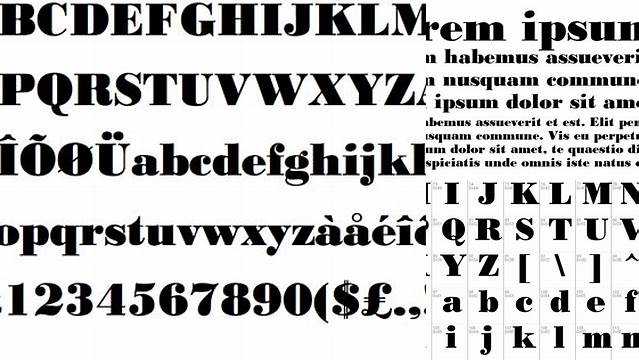
Monotype Bodoni Black: Free Font Guide & Alternatives
Hey guys! Let's dive into the world of Monotype Bodoni Black, a font that screams elegance and boldness. If you're looking for a typeface that can make your designs pop, you've come to the right place. Monotype Bodoni Black is a timeless classic, perfect for headlines, posters, branding, and so much more. This article will explore everything you need to know about this fantastic font, from its history and characteristics to its best uses and where you can find it for free. Get ready to level up your typography game!
What is Monotype Bodoni Black?
Monotype Bodoni Black is a striking typeface known for its high contrast between thick and thin strokes. It's a member of the Bodoni family, which is part of the larger group of Didone fonts. These types of fonts are characterized by their vertical stress, sharp serifs, and dramatic thick-to-thin transitions. Bodoni, in particular, was designed by Giambattista Bodoni in the late 18th century and has since become a staple in the design world. Monotype Bodoni Black, specifically, is a heavier, bolder version of the classic Bodoni, making it perfect for grabbing attention. It’s like the superhero version of a regular serif font, ready to make a statement! Using Monotype Bodoni Black can instantly elevate your designs, giving them a touch of sophistication and a modern edge. The font's clean lines and strong presence make it incredibly versatile, suitable for a wide range of projects, from editorial layouts to eye-catching advertising campaigns. When you choose Monotype Bodoni Black, you're not just selecting a font; you're embracing a legacy of typographic excellence. This font carries a rich history and tradition, making it a go-to choice for designers who want to blend classic elegance with contemporary flair. So, if you're aiming for a design that is both timeless and impactful, Monotype Bodoni Black is definitely a font you should consider adding to your toolkit. Trust me, it’s a game-changer!
History and Evolution of Bodoni
The story of Bodoni begins with Giambattista Bodoni, an Italian typographer, printer, and publisher who lived from 1740 to 1813. Bodoni's work was heavily influenced by the printing and typographic styles of John Baskerville and the French Didot family. He admired their clarity and elegance but sought to push the boundaries even further. Bodoni's vision was to create a typeface that embodied purity and perfection, a font that was both functional and beautiful. He achieved this by emphasizing the contrast between thick and thin strokes, creating letterforms that were sharp, geometric, and highly refined. His designs were a departure from the earlier transitional serif fonts, leaning towards a more modern and neoclassical aesthetic. This bold move in typography set the stage for the Didone or Modern Serif style, which includes fonts like Didot and, of course, Bodoni. The evolution of Bodoni over the years has seen numerous interpretations and adaptations. While the original Bodoni was designed for print, the digital age has brought new versions optimized for screen use. Monotype Bodoni Black is one such adaptation, designed to retain the classic elegance of Bodoni while ensuring legibility and impact in various digital applications. The digital versions often incorporate subtle adjustments to the letterforms to ensure they render well on different devices and screen resolutions. This evolution has allowed Bodoni to remain relevant and widely used in contemporary design. From its origins in the late 18th century to its modern-day digital forms, Bodoni's journey is a testament to its enduring appeal and the genius of its creator. It’s a font that has stood the test of time, continuing to inspire designers with its timeless beauty and versatility. So, when you use Monotype Bodoni Black, you’re tapping into a rich history and a legacy of typographic excellence, which is pretty cool, right?
Key Characteristics of Monotype Bodoni Black
When you look at Monotype Bodoni Black, several distinct features jump out. First and foremost is the extreme contrast between the thick and thin strokes. This high contrast gives the font its dramatic and eye-catching appearance. It's like the font is flexing its muscles, showing off those bold lines! Another defining characteristic is the sharp, unbracketed serifs. Unlike older serif fonts with rounded serifs, Bodoni's serifs are straight and flat, adding to its modern and geometric feel. This sharpness contributes to the font's overall elegance and precision. The vertical stress is another key feature. In Monotype Bodoni Black, the thick strokes are predominantly vertical, which gives the letters a strong, upright stance. This verticality adds to the font's formality and sophistication. The letterforms themselves are typically narrow and condensed, which allows for efficient use of space. This compactness makes Monotype Bodoni Black ideal for headlines and titles where you want to make a big impact without taking up too much room. It’s like fitting a lot of personality into a small package! The overall impression of Monotype Bodoni Black is one of elegance, formality, and strength. It’s a font that commands attention and conveys a sense of authority. Whether you're designing a magazine cover, a poster, or a website headline, this font will make your message stand out. Its distinctive characteristics make it a favorite among designers who want to add a touch of class and sophistication to their work. Understanding these key characteristics helps you appreciate the unique qualities of Monotype Bodoni Black and how it can enhance your designs. So, next time you see this font, you’ll know exactly what makes it so special and why it’s such a popular choice in the design world.
Best Uses for Monotype Bodoni Black
So, where does Monotype Bodoni Black really shine? This font is incredibly versatile, but it truly excels in certain applications. Think about headlines and titles – Monotype Bodoni Black is a powerhouse here. Its bold weight and high contrast make it perfect for grabbing attention and creating a strong visual hierarchy. Whether it's a magazine cover, a website header, or a poster, this font will ensure your message is seen. In the world of branding and logos, Monotype Bodoni Black can add a touch of elegance and sophistication. It's a great choice for brands that want to convey a sense of luxury, quality, and timelessness. Imagine a high-end fashion brand or a boutique hotel using this font in their logo – it just screams class, right? Editorial design is another area where Monotype Bodoni Black excels. Its clean lines and formal appearance make it ideal for magazines, books, and other publications. It works particularly well for headings and subheadings, providing a clear contrast to body text and guiding the reader through the content. While Monotype Bodoni Black is fantastic for display purposes, it's generally not the best choice for long blocks of body text. The high contrast and sharp serifs can become tiring on the eyes when read for extended periods. It’s like trying to run a marathon in high heels – stylish, but not very practical! However, it can be used sparingly for short paragraphs or captions to add a touch of visual interest. In advertising and marketing materials, Monotype Bodoni Black can help create a polished and professional look. It's perfect for campaigns that aim to convey a sense of sophistication and quality. Think about advertisements for luxury goods, cosmetics, or high-end services – this font can help elevate the overall aesthetic. Ultimately, the best uses for Monotype Bodoni Black are those that leverage its bold personality and elegant appearance. It’s a font that demands attention and adds a touch of class to any project. So, if you’re looking to make a statement and create a lasting impression, Monotype Bodoni Black is definitely a font worth considering. It’s like the little black dress of the font world – always stylish and always appropriate for making a statement!
Alternatives to Monotype Bodoni Black
Okay, so maybe you can't find Monotype Bodoni Black for free right now, or perhaps you just want to explore some similar options. No worries! There are plenty of fantastic alternatives out there that capture the same elegance and sophistication. Let's dive into some top picks. First up, we have Didot. As we discussed earlier, Didot is a close cousin of Bodoni, sharing the same high-contrast and refined aesthetic. It's another classic Didone font that's perfect for headlines, titles, and branding. Think of Didot as the slightly more flamboyant sibling of Bodoni – equally stylish, but with a bit more flair. Next on the list is Playfair Display. This Google Font is a popular choice for its elegant and contemporary feel. It has a similar high-contrast design to Bodoni but with a slightly softer and more rounded appearance. Playfair Display is a great option if you want a font that's both sophisticated and approachable. It’s like the friendly version of a high-fashion model – still stunning, but a little more down-to-earth. Libre Baskerville is another excellent alternative available on Google Fonts. It's a more readable and versatile option than Monotype Bodoni Black, making it suitable for both display and body text. Libre Baskerville retains the classic serif elegance but with a slightly more open and airy feel. It’s like the comfortable yet stylish shoes of the font world – perfect for everyday wear. If you're looking for something with a bit more personality, consider Montserrat. While it's a sans-serif font, Montserrat shares a similar geometric structure and clean lines with Bodoni. It’s a great choice for modern designs that need a touch of sophistication without being overly formal. Montserrat is like the cool, minimalist cousin who always looks effortlessly chic. Another alternative worth exploring is Century Schoolbook. This font is known for its readability and classic appeal. While it doesn't have the same extreme contrast as Bodoni, it still offers a timeless and elegant look. Century Schoolbook is like the well-tailored suit of the font world – always appropriate and always stylish. Ultimately, the best alternative to Monotype Bodoni Black will depend on your specific project and design goals. Experiment with different fonts and see what works best for you. There’s a whole world of beautiful typefaces out there, so don’t be afraid to explore and find your perfect match. It’s like trying on different outfits – you never know what you might discover!
So, there you have it, guys! A deep dive into the world of Monotype Bodoni Black. We've covered everything from its history and characteristics to its best uses and where to find it (or alternatives) for free. This font is a true classic, known for its bold elegance and timeless appeal. Whether you're designing a magazine cover, a logo, or a website headline, Monotype Bodoni Black can add a touch of sophistication and make your message stand out. Remember, the key characteristics of this font are its high contrast, sharp serifs, and vertical stress. These features give it a distinctive and commanding presence. While it's not the best choice for long blocks of body text, it excels in headlines, titles, and other display applications. If you can't find Monotype Bodoni Black for free, don't worry! There are plenty of fantastic alternatives, such as Didot, Playfair Display, and Libre Baskerville, that offer a similar aesthetic. The world of typography is vast and exciting, so don't be afraid to explore and experiment. Try different fonts, mix and match styles, and see what works best for your projects. And most importantly, have fun with it! Choosing the right font can make all the difference in your designs. Monotype Bodoni Black is a powerful tool in any designer's arsenal, but it's just one piece of the puzzle. Understanding its strengths and limitations, and knowing how to use it effectively, will help you create stunning visuals that captivate and engage your audience. So, go ahead, give Monotype Bodoni Black (or one of its awesome alternatives) a try in your next project. You might just discover your new favorite font! Keep designing, keep creating, and keep exploring the wonderful world of typography. You’ve got this!